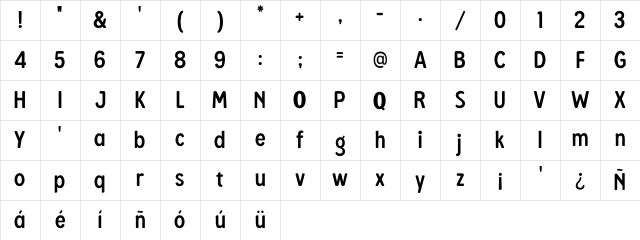
Mousse Regular Free Font
Mousse Regular
Design Context for Mousse
Mousse is a composed and adaptable typeface that performs quietly and consistently across a wide range of design contexts.
Pro Tip: Use Mousse in both headline and body roles to test its range before committing to a single application.